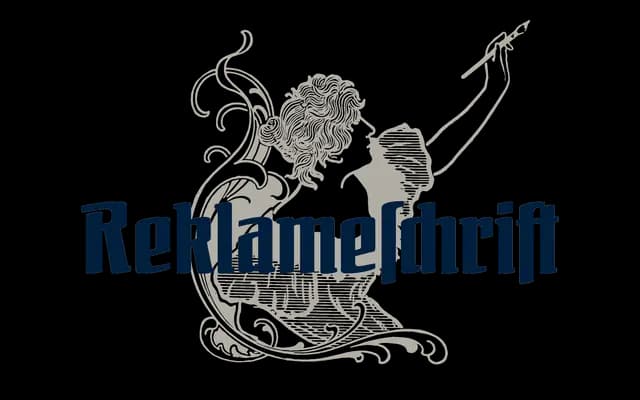
FDI Reklameschrift
FDI Type Foundry · Otto Ludwig Naegele, Ralf Herrmann · 2022
A digitisation of the 1908 Ludwig & Mayer advertising face Reklameschrift Bombe, offered in two variants balancing historical fidelity against modern legibility.
Originally produced at the German type foundry Ludwig & Mayer in 1908, Reklameschrift Bombe was an advertising display face mixing roman and blackletter letterforms. FDI Type's digitisation preserves that hybrid character in Version A, while Version B substitutes the blackletter-style glyphs for more legible alternatives suited to contemporary use. Both versions cover Western, Eastern and Central European Latin through extended OpenType glyph sets.
A digitisation of a 1908 letterpress advertising face with hybrid characteristics, combining display roman structures with blackletter-style letterforms in one variant; classified as display due to its historical advertising origins and limited use cases.